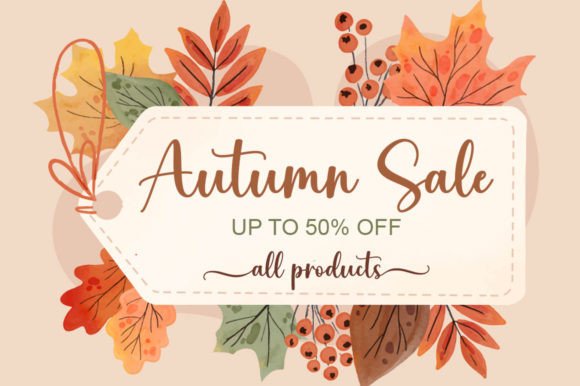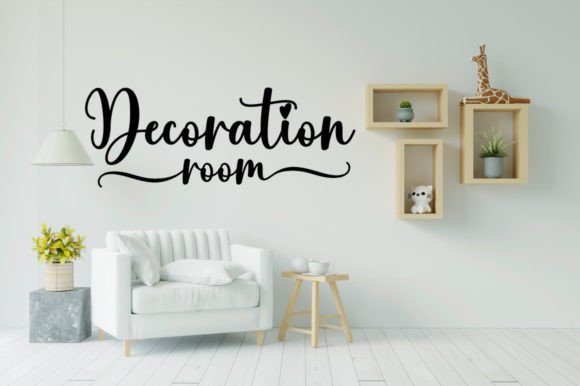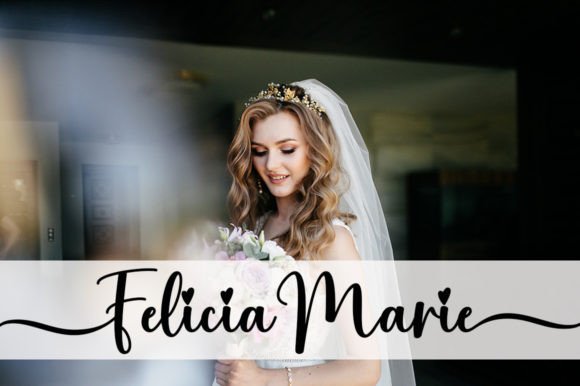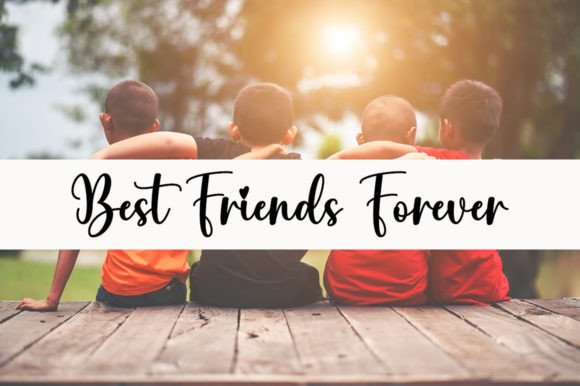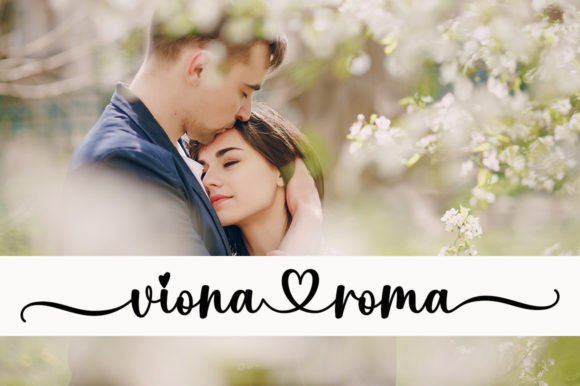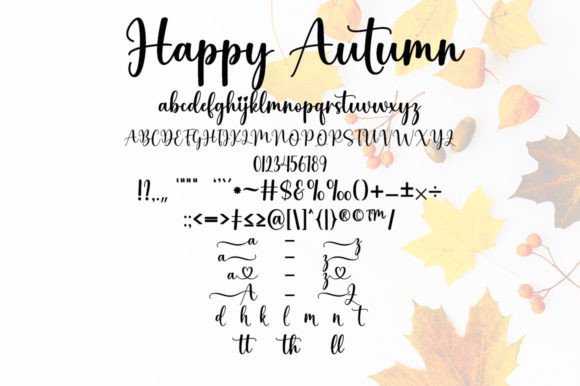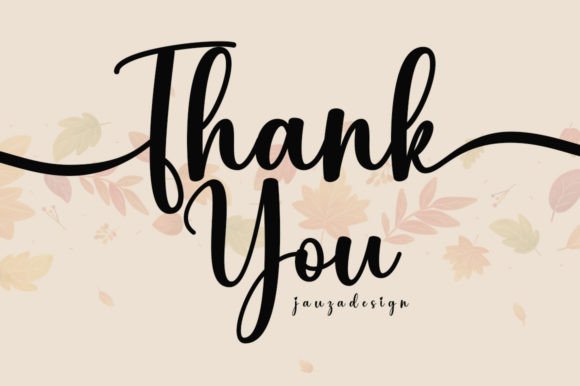
Happy Autumn Font
About Happy Autumn Font
“Happy Autumn” is a charming and delicate script font that brings a touch of loveliness to your designs. The font’s PUA encoding is a valuable feature, providing easy access to a wide array of amazing glyphs and ligatures, allowing you to explore and utilize the full creative potential of this delightful typeface.
The delicacy of “Happy Autumn” makes it a perfect choice for various creative projects, from invitations to branding, social media graphics, and more. Its script style adds a personal and elegant touch, creating a warm and inviting atmosphere in your designs.
The PUA encoding feature enhances the font’s accessibility, ensuring that you can effortlessly navigate through its impressive collection of glyphs and ligatures. This functionality empowers designers to customize and experiment with different letter combinations, bringing a unique and personalized flair to their creations.
Adding “Happy Autumn” to your favorite projects is a confident choice, as it promises to deliver a visually pleasing outcome. Whether you’re working on seasonal designs, greetings, or any other creative endeavor, this script font is designed to leave you amazed by the beautiful and intricate details it brings to your typography.
In summary, “Happy Autumn” is not just a font; it’s a creative tool that invites you to explore and be amazed by the possibilities it offers. With its lovely and delicate script style, coupled with PUA encoding, this font is a valuable addition to your design toolkit, promising outstanding outcomes in your favorite creative ventures.